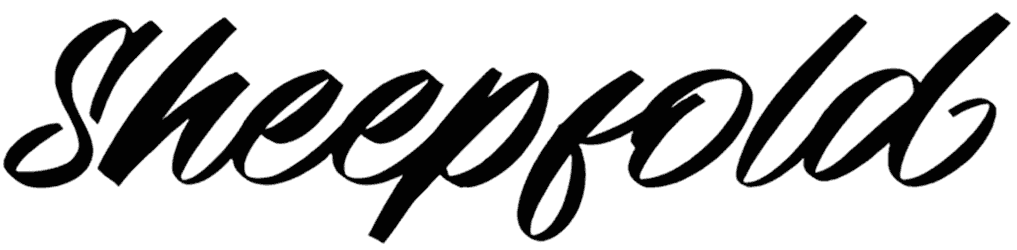
Sheepfold Font
If you are already looking for a script font with oblique and elongated characters that adds a personalized touch to your artwork, then we have a fantastic offer for you. We want to introduce you to Sheepfold, a good-looking typeface that would look really good on a wide range of creative ideas, including posters, digital banners, social media posts, and product packaging.